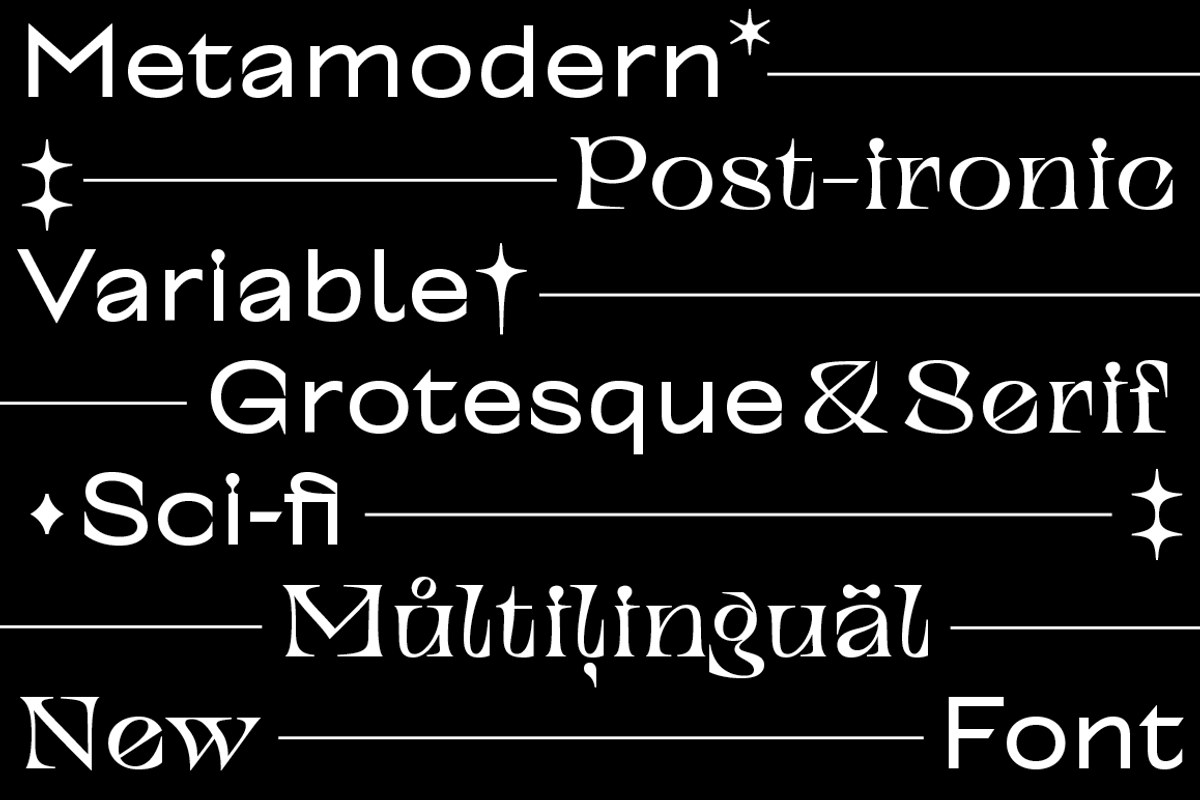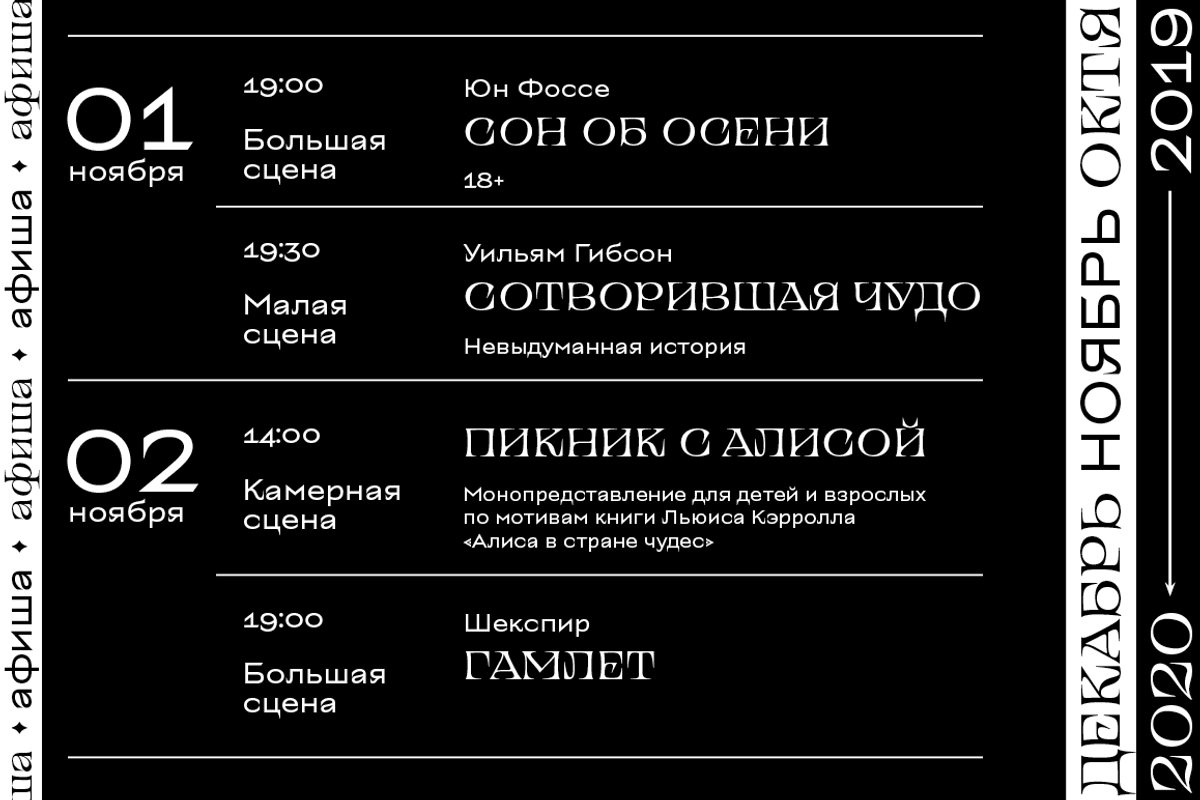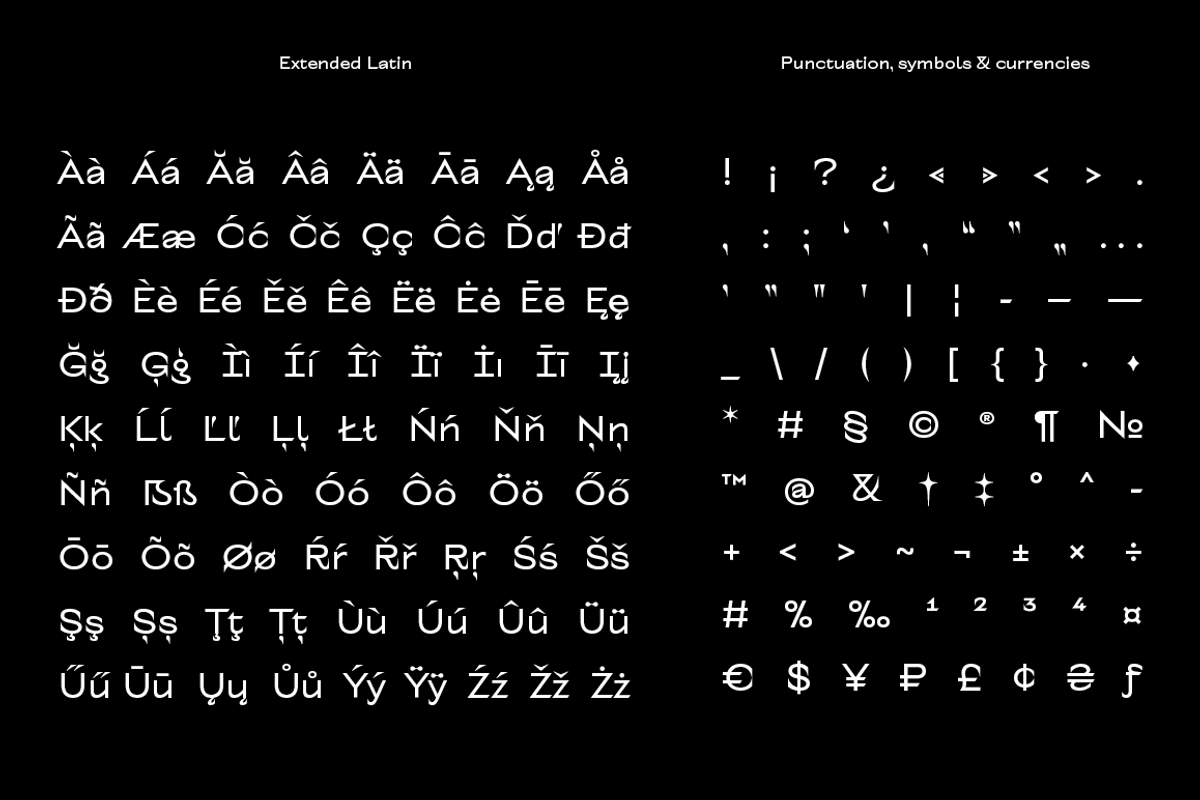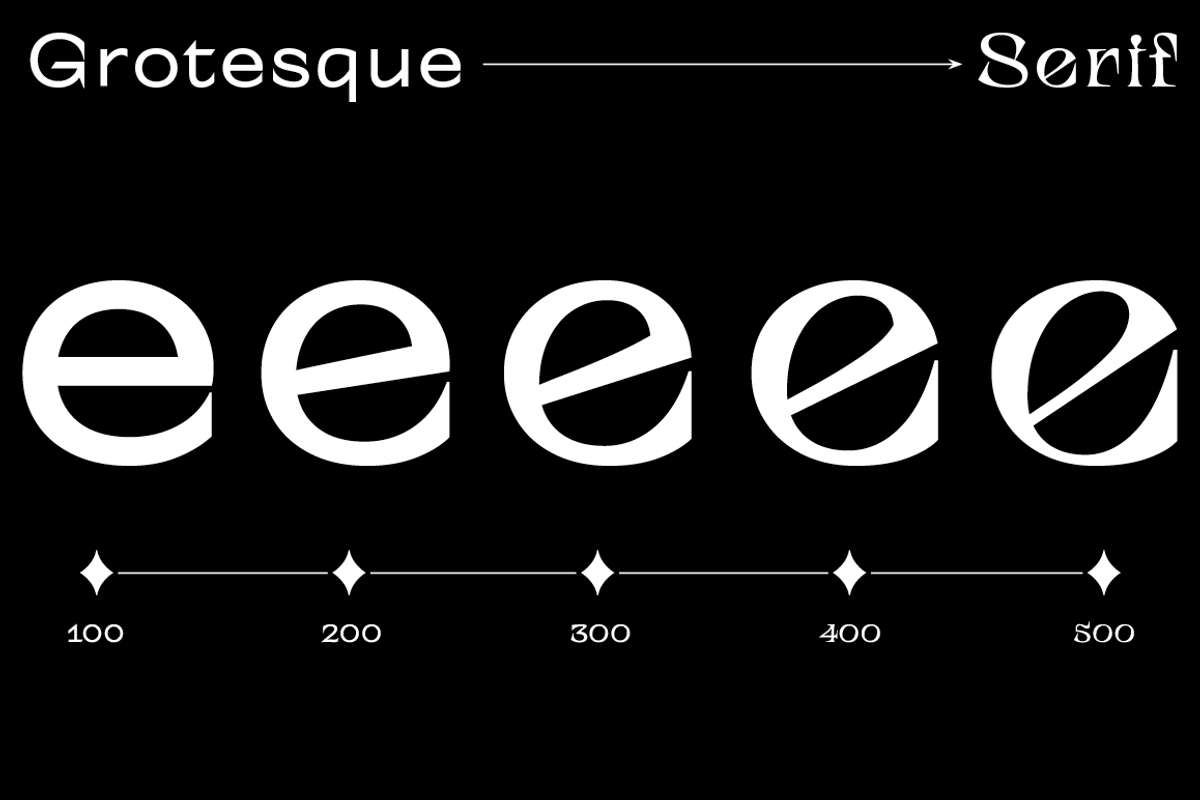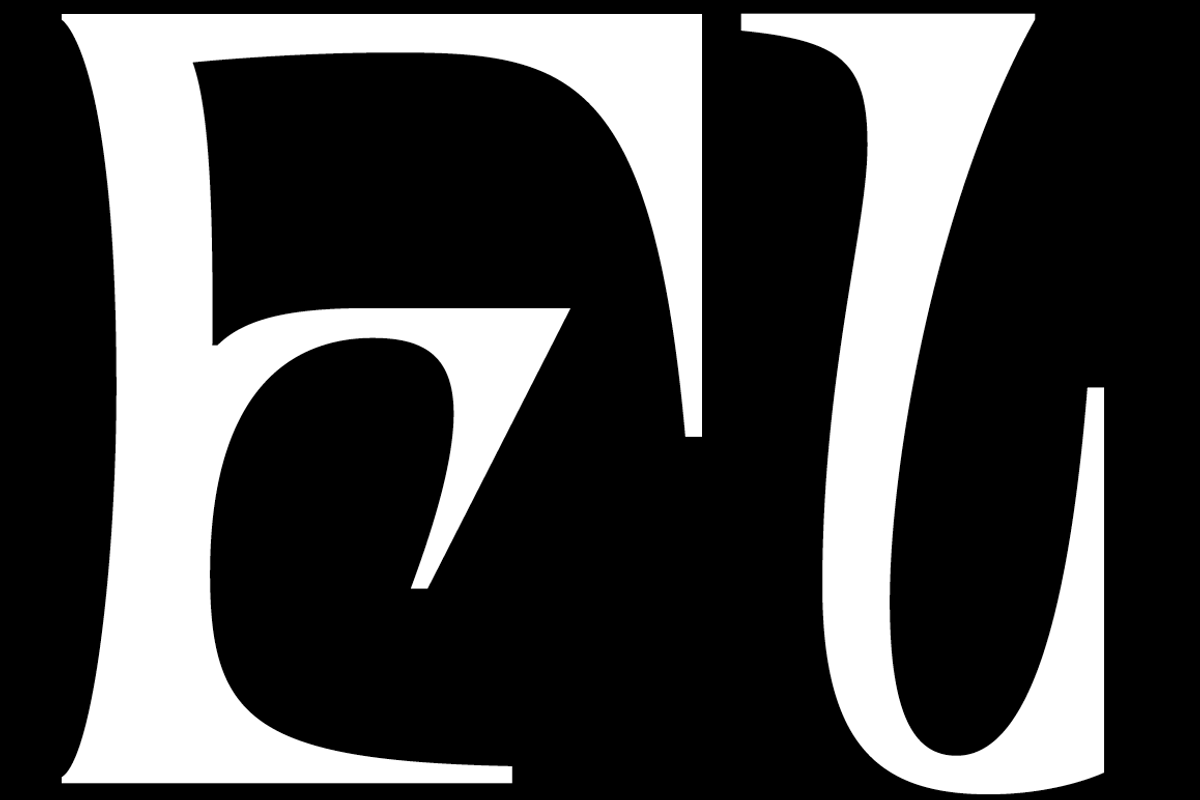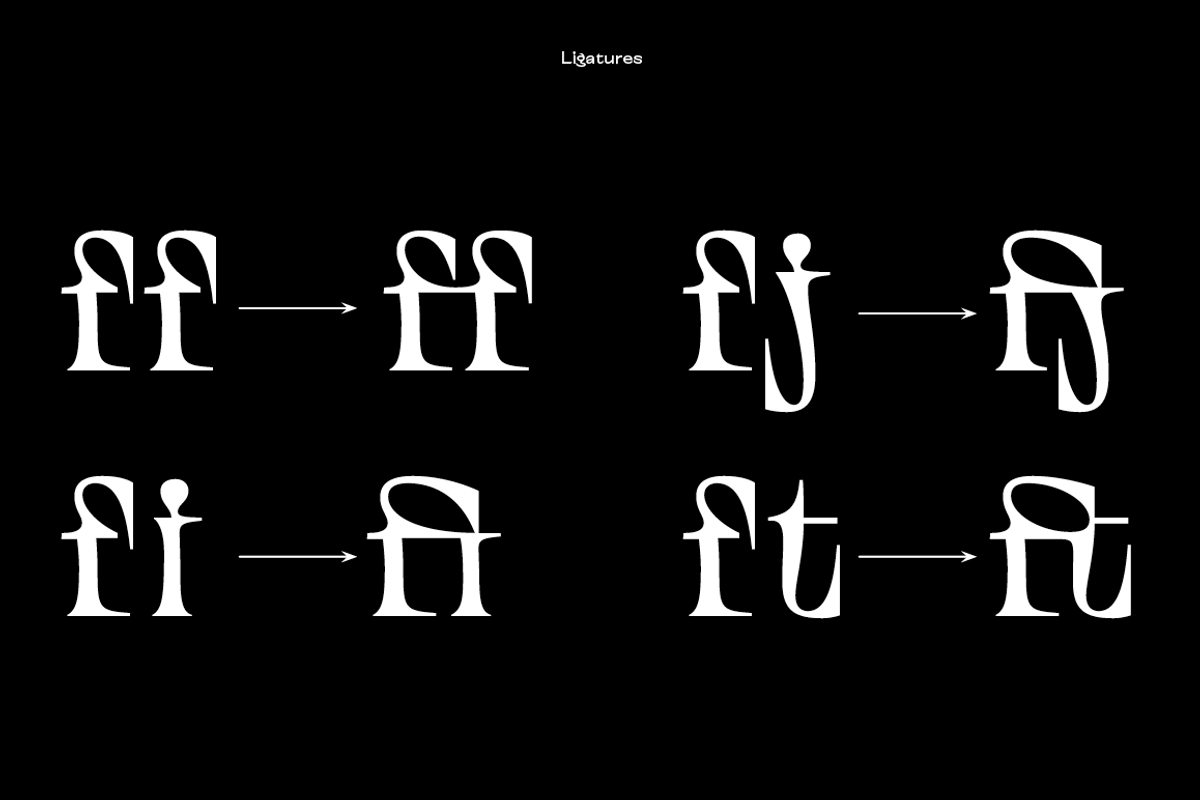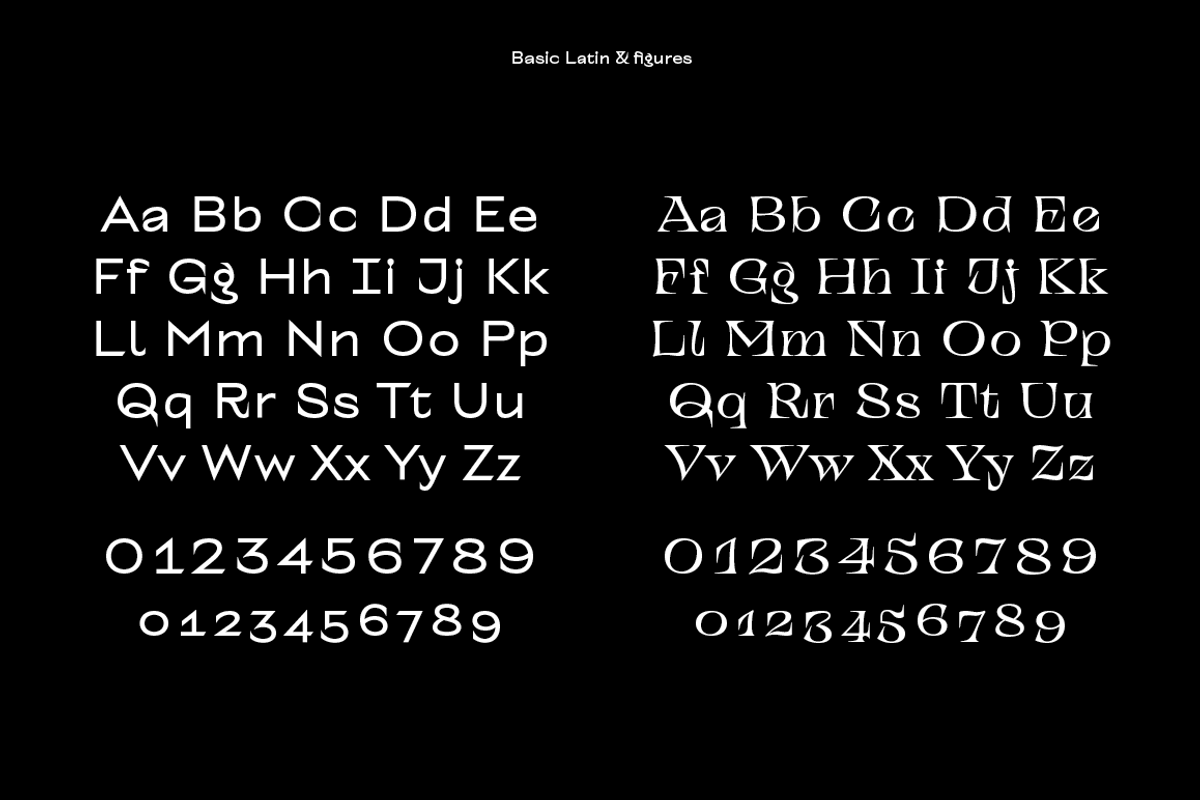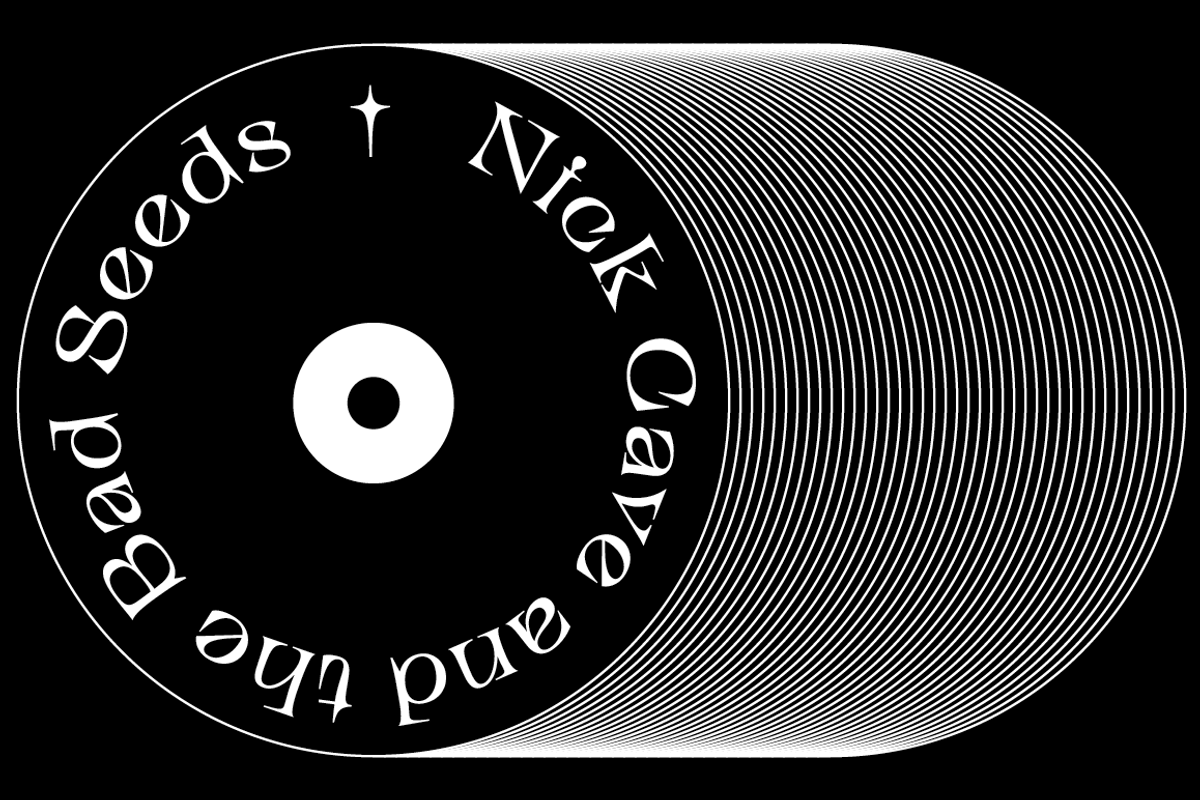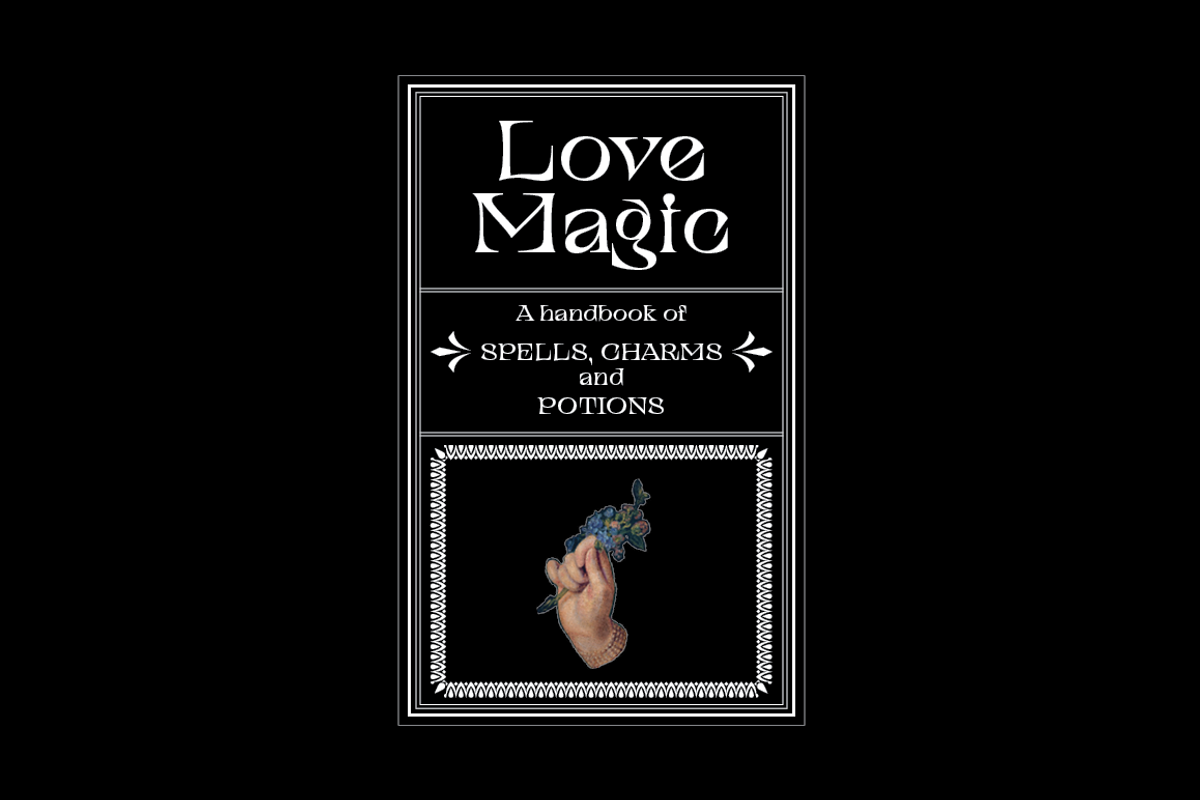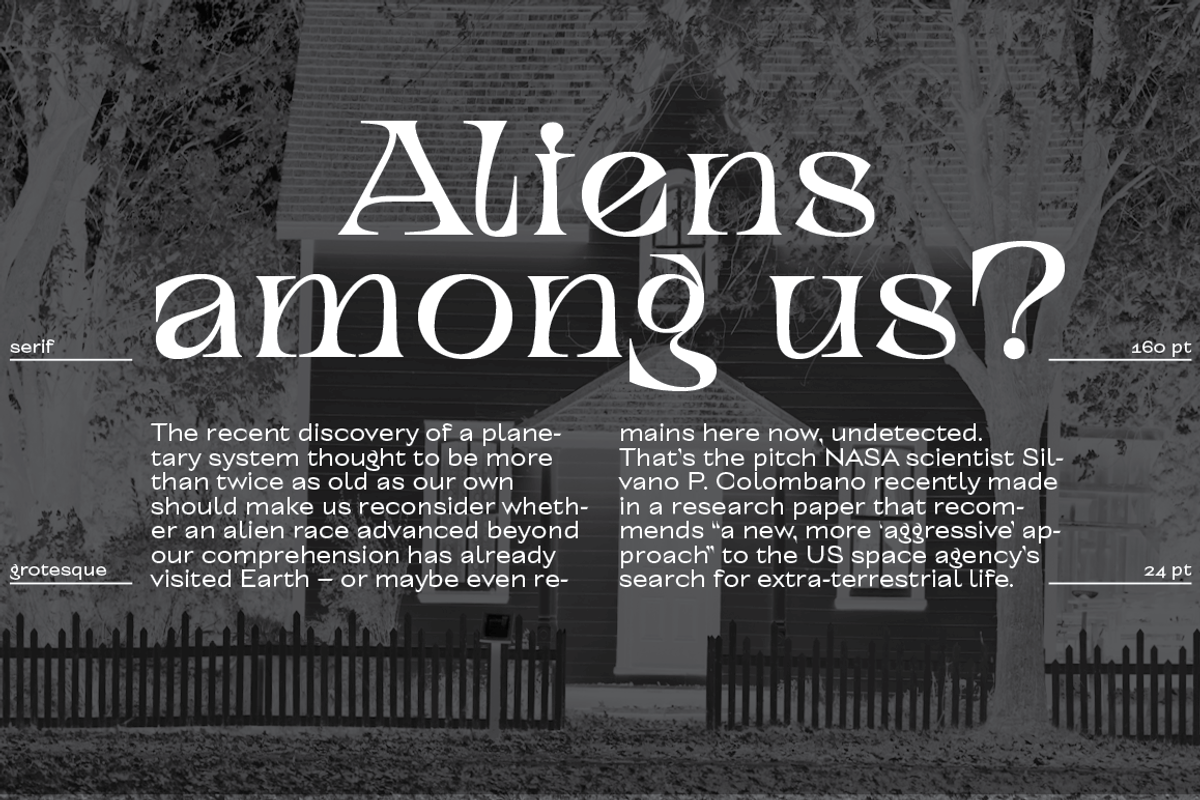
TT Alientz
TT Alientz is a variable* typeface that allows the user to make a visual journey from a laconic extraterrestrial grotesque to a very prickly display serif. As part of this project, we decided to investigate the influence of a foreign substance and the consequent transformation of the original forms, which ultimately leads to extreme visual changes.
The TT Alientz family consists of 3 fonts: grotesque, serif and variable* font. Each font contains more than 470 glyphs. In addition to broad language support (including Cyrillic), the typeface has stylish ligatures, contextual alternates, and old-style figures. Variability in the typeface affects the changes in the overall style of the font—moving the slider to adjust the variable axis, you can go from a laconic grotesque to an extreme serif.
TT Alientz Grotesque is a fairly neat hipster grotesque, but with its own small features. In the design of some letters of the grotesque you can find small sharp elements that add uniqueness and character to the font when used in large inscriptions and headings. At the same time, when you use the font in small size of the size and in text blocks, sharp elements do not greatly affect its readability. The design of some letters of the grotesque is quite peculiar and is intended to emphasize the initial concept of slight 'alienness'.
TT Alientz Serif is an 'infected' TT Alientz Grotesque and the result of changes to it. Unlike the grotesque, the serif is dynamic, viscous, ductile and very prickly. Serif has a lot of smooth lines and not quite standard strokes contrast. It can be noted that most serifs in the antiqua are pointed inward, not outward. Despite its extremeness, the serif will look good both in large and in small body sizes.